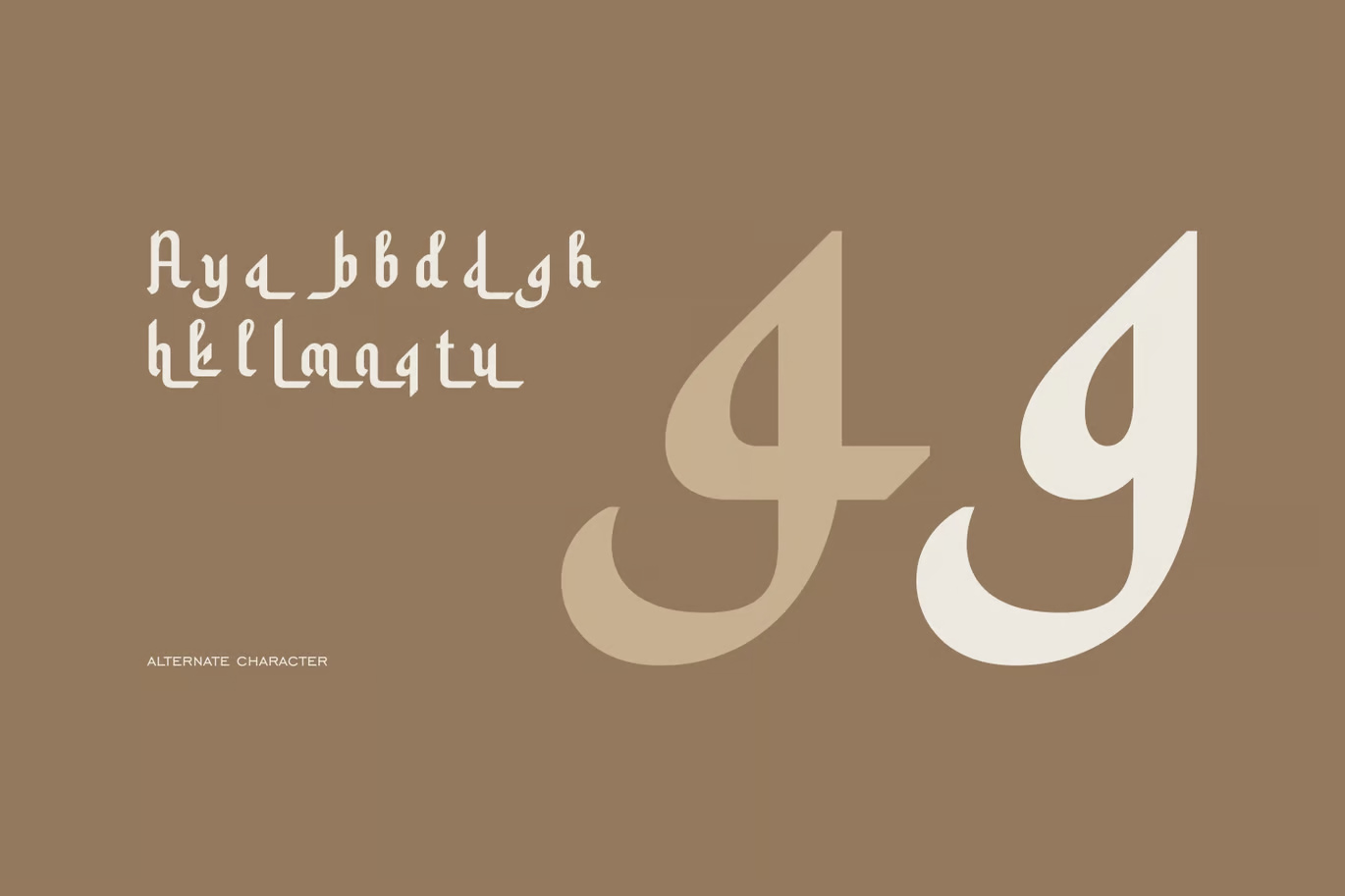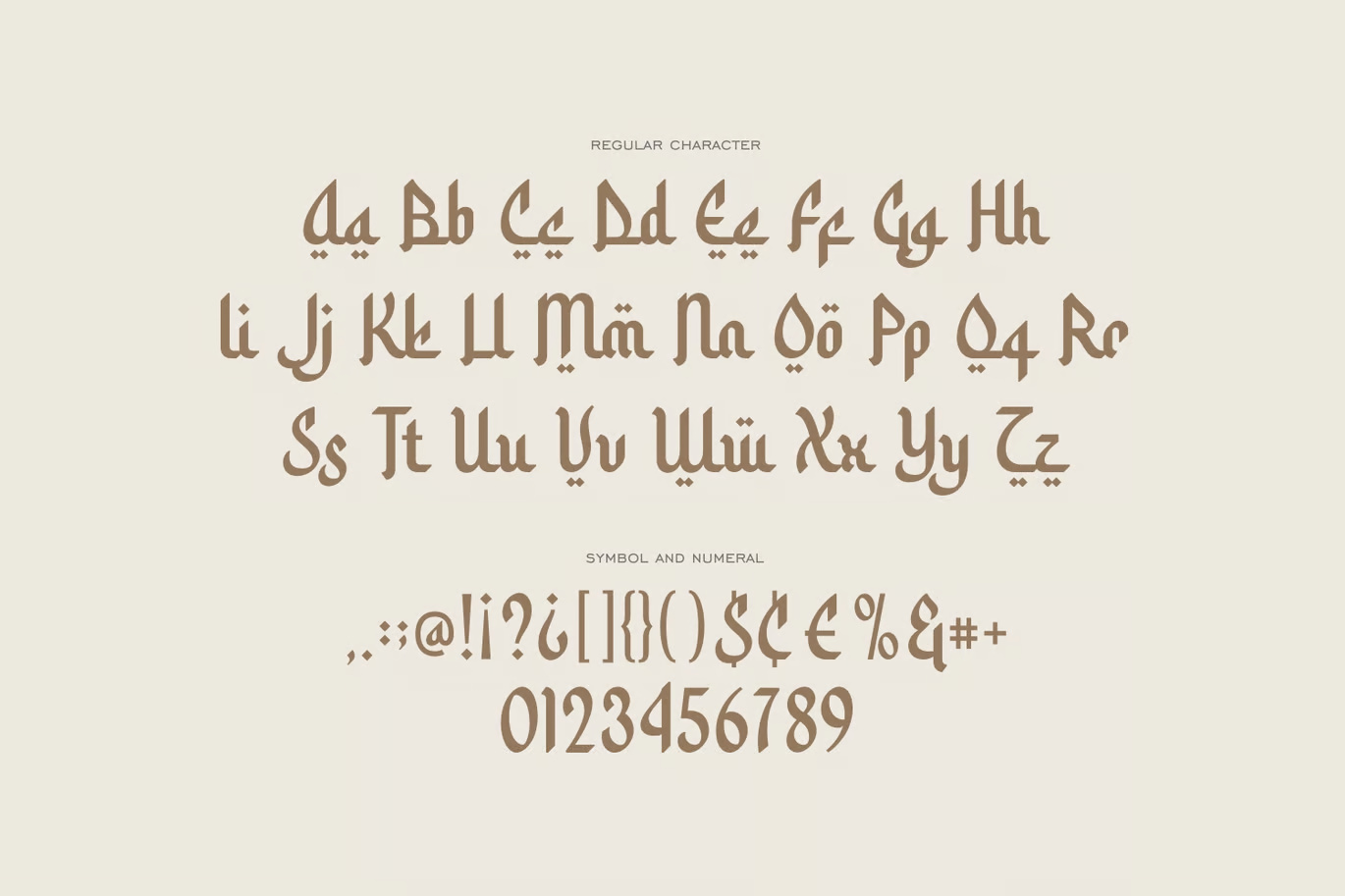
Arabic Font for Ramadan – Al Ghalib
Introducing Al Ghalib – A Ramadan-Inspired Arabic Font
Al Ghalib is a font inspired by the beauty of Arabic calligraphy, designed specifically for Ramadan and Islamic-themed designs. It features a smooth, handwritten calligraphic style with a contemporary touch, incorporating elegant curves, subtle ligatures, and a balanced flow between Arabic and Latin scripts. Its unique aesthetic makes it ideal for religious celebrations, invitations, posters, and branding projects that require an authentic yet artistic Arabic look.
Arabic Font for Ramadan – Al Ghalib Islamic
Arabic Font for Ramadan - Al Ghalib